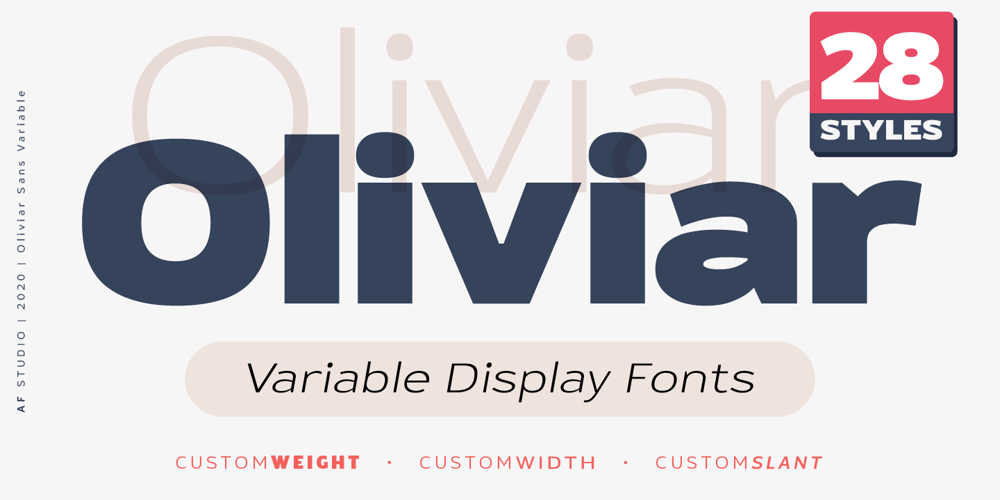
Oliviar Sans
Oliviar Sans font
Oliviar Sans Font Family was designed by Adam Fathoni Haris and published by Adam Fathony. Oliviar Sans contains 29 styles and family package options. Oliviar Sans Variable is a modern sans serif with Grotesque touch. It’s my experimental to study the new trends for the future fonts that is Variable Fonts.Inspired by a Geometrical fonts and also Humanist Sans serif. Created with 8 Masters that export to the traditional OTF to 28 Styles!.On the Applications that support variable fonts such as Adobe Illustrator & Photoshop, you can get more than only 28, you can customize the Weight, Width and Slant.Weight created from Thin (100) to Bold (900), Width created from Standard (100) to Expanded (900) and Slant based on degree angle from 1˚ to 10˚.There is a new slider icons for accessing this features Check on Last Display Image. Another advantage on the Variable fonts are you just need 1 files to install to your computer and it will install all the styles available.All of the Fonts are support for Multilanguage, Carefully Crafted.